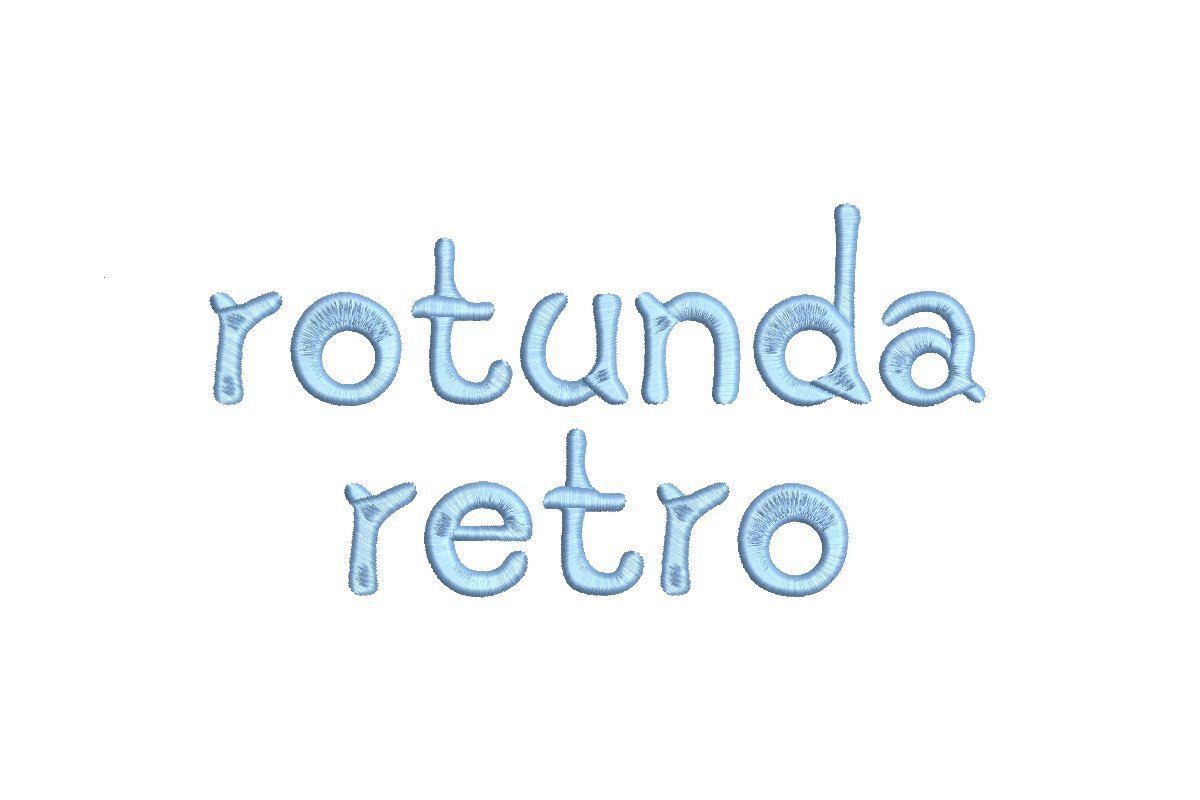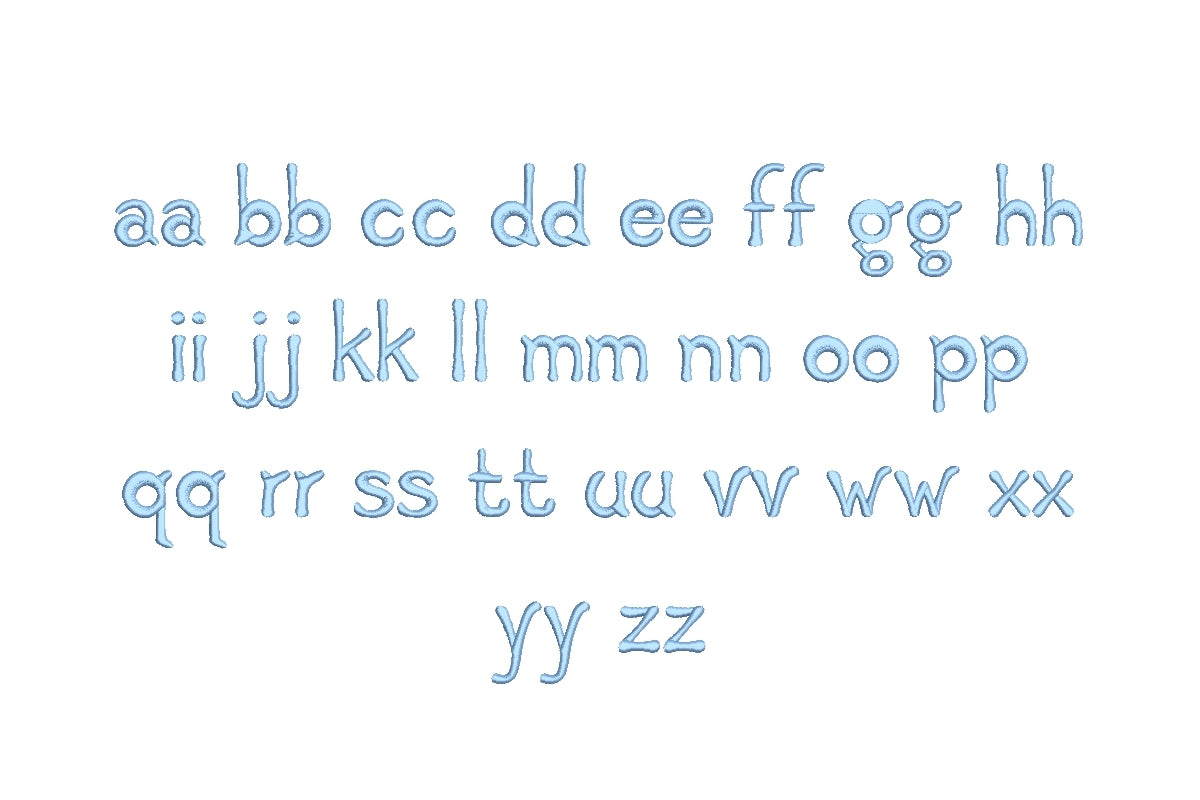
Introducing the Rotunda Retro ESA Font - A Vintage Touch for Modern Embroidery!
With a diverse range of customizable characters and impeccable stitch quality, your embroidery projects will exude timeless elegance. Say hello to design versatility and embrace a world of creative possibilities with the Rotunda Retro ESA Font. Transform your embroidery into a classic masterpiece today!